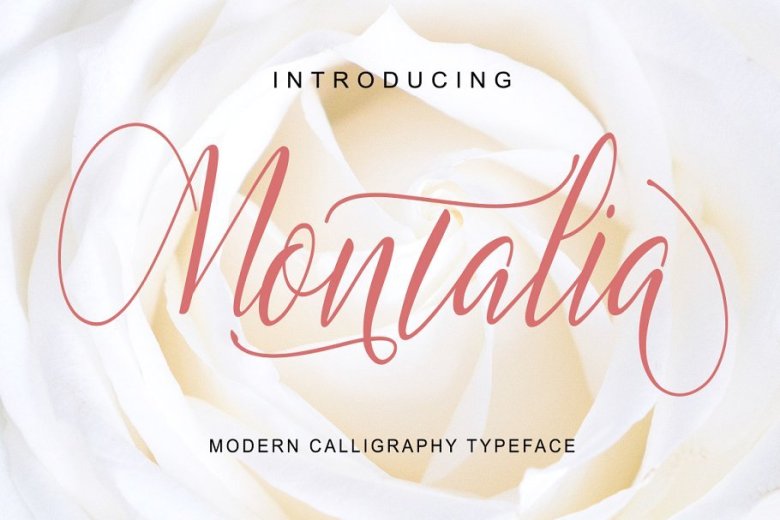
Montalia Script Font
This is modern calligraphy typeface. High quality script font with swashes inspired by modern vintage design. Introducing Montalia Font. Montalia designed and shared by masinong. This font is suitable not only for branding but also for designing your invitations and congratulations. We like its versatility in the transformation of any graphic works, we hope it’ll also help you.